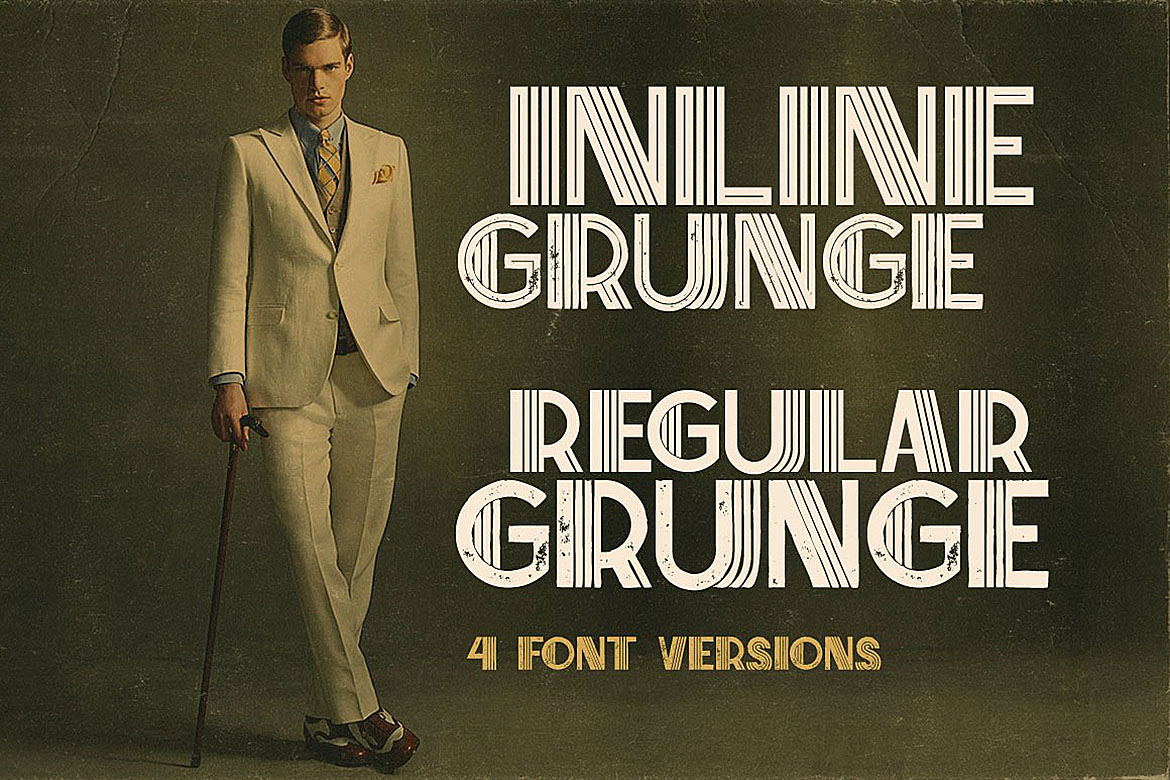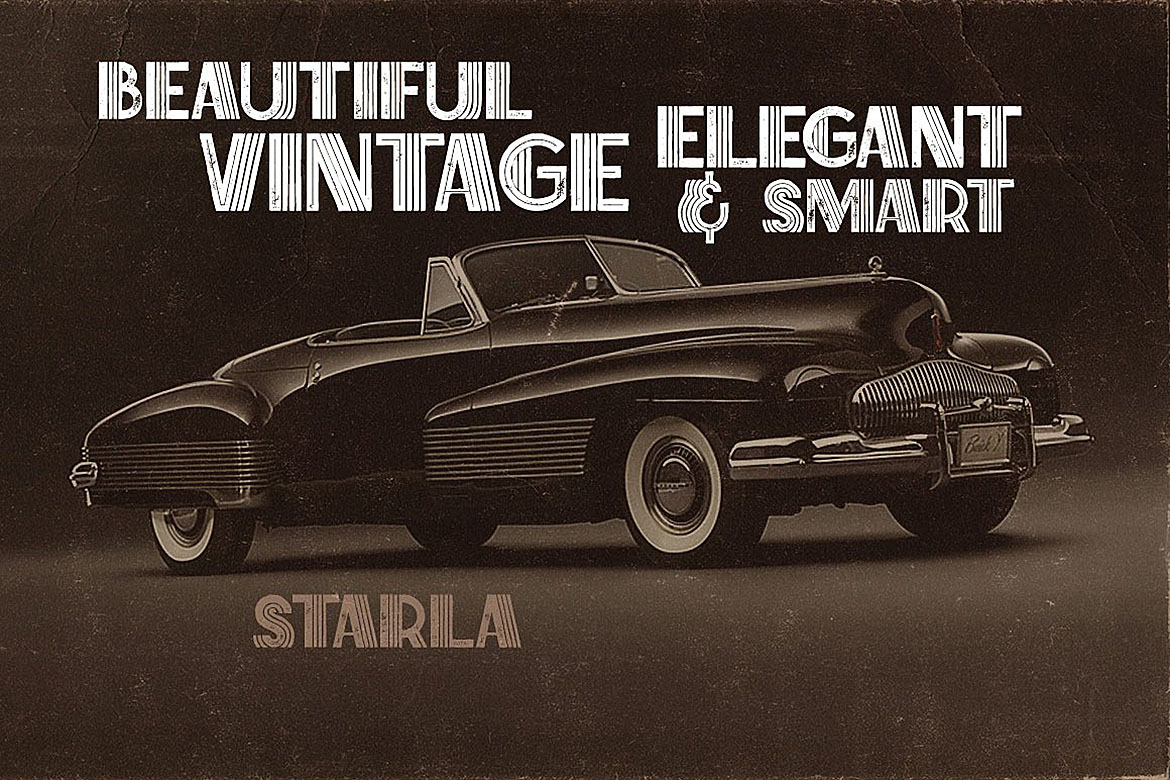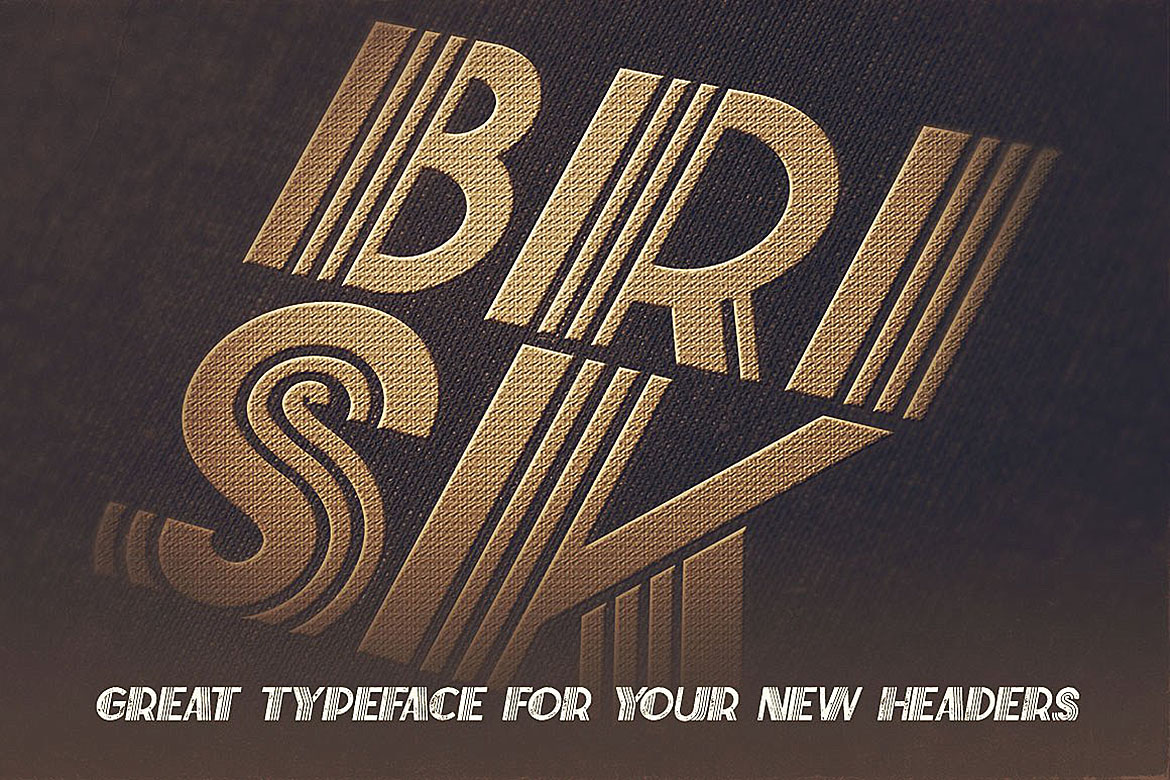
Brisk Font
Brisk is a unique font inspired by art deco sensibilities and design. This retro font comes with 4 different styles for the ultimate in customization and design!